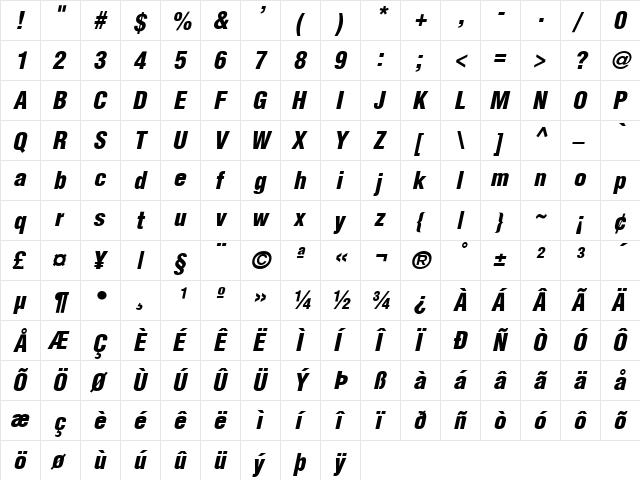
SwitzerlandCondBlack Italic
Design Context for SwitzerlandCondBlack Typeface
SwitzerlandCondBlack is a composed and adaptable typeface that performs quietly and consistently across a wide range of design contexts. The slanted form adds forward momentum and visual energy. The condensed width makes it efficient for tight spaces without sacrificing legibility.
Pro Tip: Use SwitzerlandCondBlack for emphasis, pull quotes, and subheadings where its slanted energy can add rhythm to the layout.